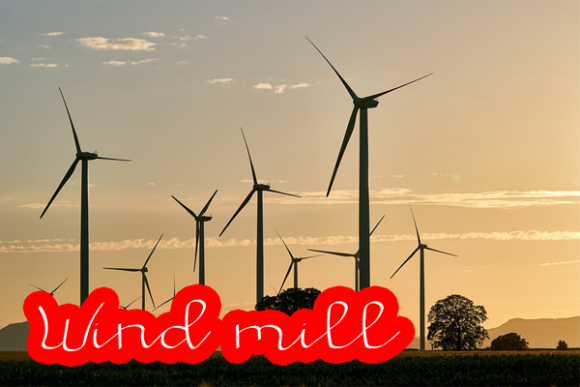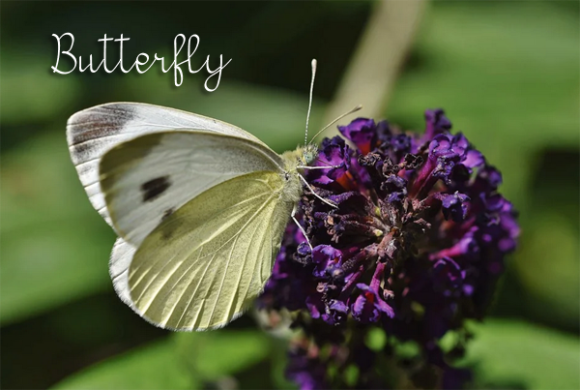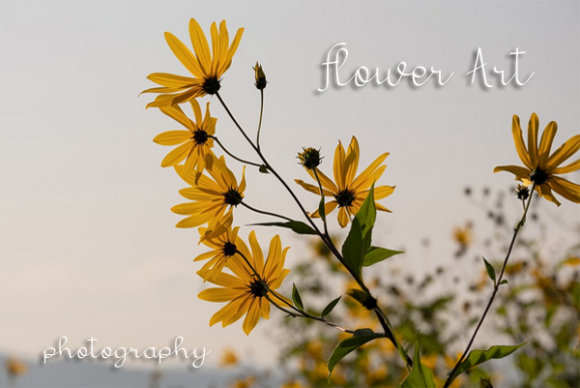
A Font Fit for Love: Unveiling the Magic of Deluxe Font
As I sat at my desk, staring at a blank sheet of paper, I knew exactly what I needed to bring my design to life – a touch of romance. The words I was trying to convey were of love, commitment, and happiness, and I wanted my font to reflect that. That’s when I stumbled upon the Deluxe Font, a dainty and flowing script font that seemed to dance across the page.
The Deluxe Font is perfect for those special moments in life – love letters, wedding invitations, and heartfelt messages. Its elegant and refined design makes it a valuable addition to any designer’s toolkit. Whether you’re a seasoned pro or a budding creative, the Deluxe Font is sure to elevate your designs and leave a lasting impression.
- Unique Characteristics: Features a unique blend of elegance and sophistication, with subtle flair and rounded edges that set it apart from other fonts.
Deluxe Font Review
I recently had the chance to work with the Deluxe Font, and I must say it’s a decent addition to any design project. Here’s what I liked and disliked about it:
- Legibility: The Deluxe Font is highly legible, even at smaller font sizes. It’s perfect for body text or any situation where readability is crucial.
- Variety: The font family offers a range of weights and styles, making it easy to customize and create visually appealing typography.
- Professional Look: The Deluxe Font has a sleek, modern design that gives any project a professional and sophisticated feel.
- Limited Expressiveness: While the Deluxe Font is versatile, it might not be the best choice for projects that require a lot of emotional expression or creativity.
Overall, I’d give the Deluxe Font 4 out of 5 stars. While it has its limitations, it’s a solid choice for any design project that requires a clean, professional look. If you’re looking for a versatile font that’s easy to use, the Deluxe Font is definitely worth considering.
Getting the Most Out of Deluxe Font
For optimal results, use Deluxe Font in conjunction with high-contrast backgrounds and clear typography.
Experiment with different font sizes and styles to create visually appealing designs.
Deluxe Font is ideal for:
1. Luxury branding and marketing materials.
2. High-end typography and graphic design projects.
3. Creating a sophisticated and elegant visual identity.
Alternatives to Deluxe Font for Designers
Montserrat is a modern sans-serif font that is highly legible and versatile. It’s perfect for use in digital products, apps, and websites where a clean and minimalist aesthetic is desired. Montserrat is more geometric and modern compared to Deluxe Font, which has a more classic feel.
Open Sans is a popular sans-serif font that is highly readable and suitable for a wide range of applications. It’s a great choice for body text and headings, and is often used in digital products and websites. Open Sans is more neutral and less decorative than Deluxe Font, making it a good choice for projects where a subtle font is desired.
Playfair Display is a luxurious and elegant serif font that is perfect for use in high-end branding, advertising, and editorial design. It’s a good choice for projects where a sophisticated and refined aesthetic is desired. Playfair Display is more ornate and decorative compared to Deluxe Font, making it a good choice for projects that require a touch of luxury.
What is the recommended font size for using the Deluxe Font?
The Deluxe Font is designed to be highly legible at a wide range of font sizes. For optimal readability, we recommend using font sizes between 12pt and 24pt for body text. However, you can experiment with different font sizes to find the perfect fit for your project.